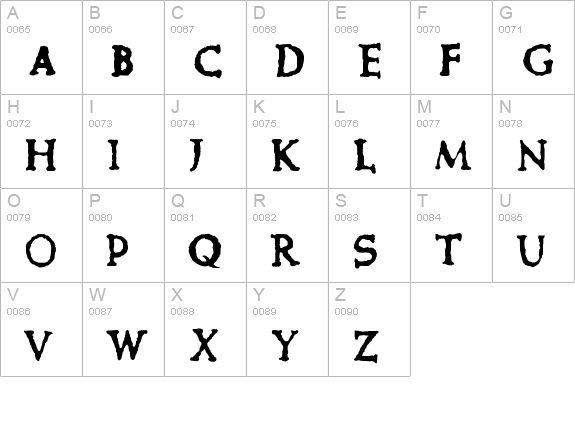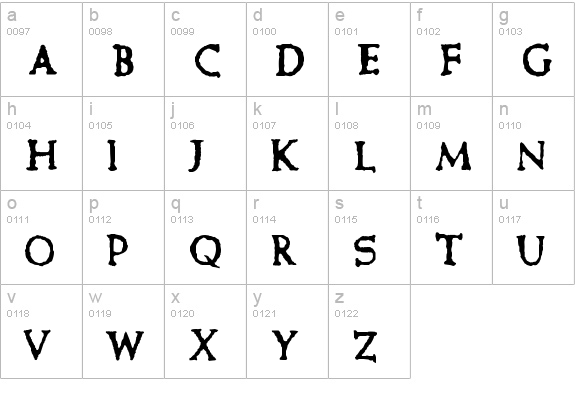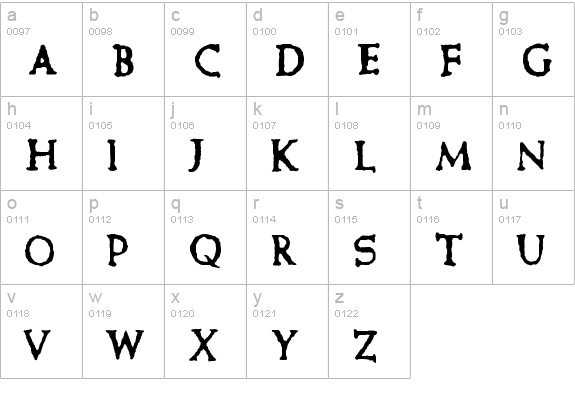
Cure - Picture Show Font Details
Cure - Picture Show font is a whimsical and charming display typeface that exudes a playful and artistic vibe. With its unique and hand-drawn design, this font is perfect for adding a touch of creativity to your projects. Whether you're working on posters, invitations, or branding materials, Cure - Picture Show font will surely stand out and make a statement. The best part? Cure - Picture Show font is available for free download at FontsMarket.com. So you can easily access this delightful font and incorporate it into your designs without any cost. Don't miss out on this opportunity to add a fun and quirky element to your creations with Cure - Picture Show font. Download it now and let your imagination run wild!